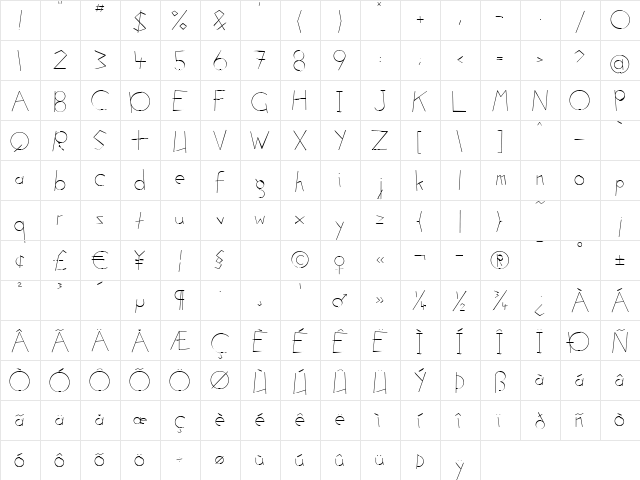
Atomic Pasta Regular
Design Context for Atomic Pasta Typeface
Atomic Pasta is a composed and adaptable typeface that performs quietly and consistently across a wide range of design contexts.